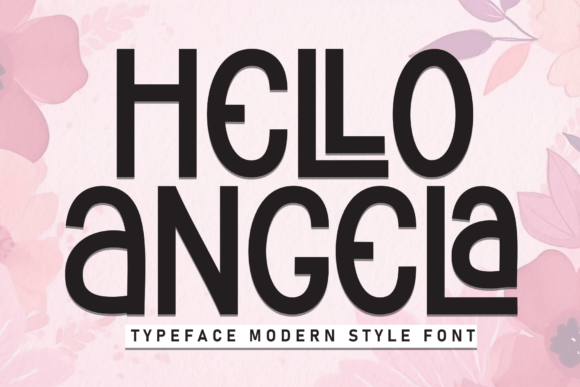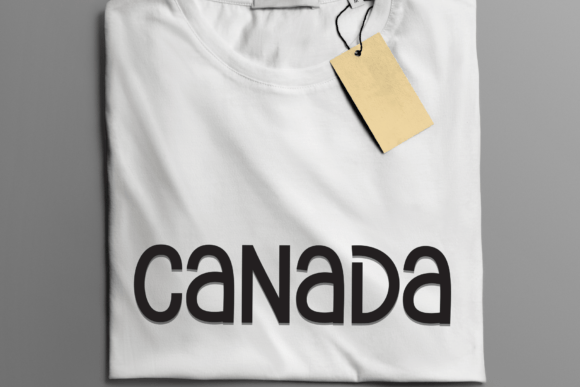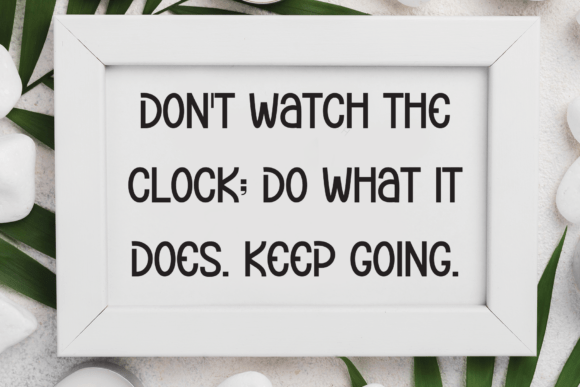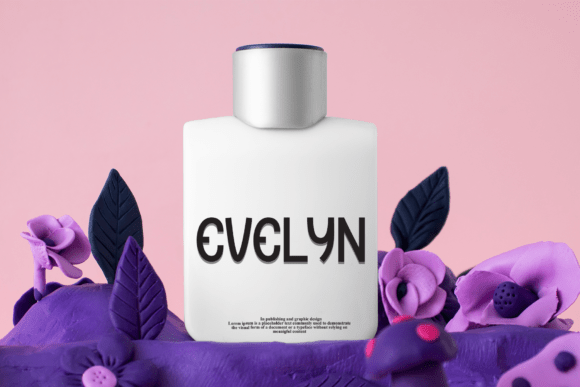
Hello Angela Font
About the Hello Angela Font
Get ready to be inspired by Hello Angela Font, a fresh and dynamic typeface for modern creators. Hello Angela is a casual and neat display font that radiates a fresh, friendly vibe. With clean lines and a relaxed structure, it’s perfect for packaging, posters, and social media graphics. The approachable design adds charm and clarity to projects while maintaining a polished appearance.
Hello Angela’s friendly personality makes it ideal for branding projects targeting a young, approachable audience, particularly in food, beverage, or lifestyle sectors. It works exceptionally well in headlines, short taglines, and logos, adding a touch of casual sophistication. However, its display nature makes it unsuitable for body text or UI elements requiring high readability at smaller sizes.
Consider pairing Hello Angela with a clean sans-serif like Lato for body copy, providing a strong contrast in weight and style while maintaining a cohesive feel. Alternatively, a delicate script font could add a touch of elegance to enhance invitations or packaging designs. Avoid pairing it with heavy, overly decorative fonts, which could clash with its relaxed structure.
The font’s overall mood is cheerful and optimistic, making it a versatile choice for projects emphasizing approachability and warmth. Its versatility allows for a range of applications, from playful social media campaigns to more refined branding materials.
Hello Angela Font Usage Examples
Hello Angela Font Example